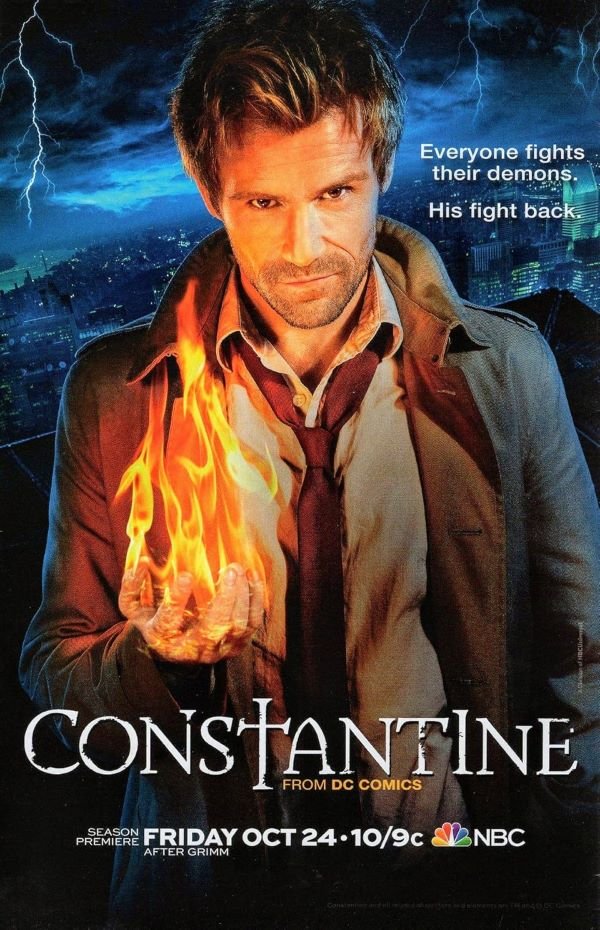
Constantine Font is a dark, distressed display typeface by Dukom — a close match to the film’s custom title lettering — with sharp edges, uneven strokes, and a gritty supernatural feel that perfectly reflects the occult themes, horror elements, and neo-noir atmosphere of the 2005 Keanu Reeves film. Free for personal use.
Designer: Dukom